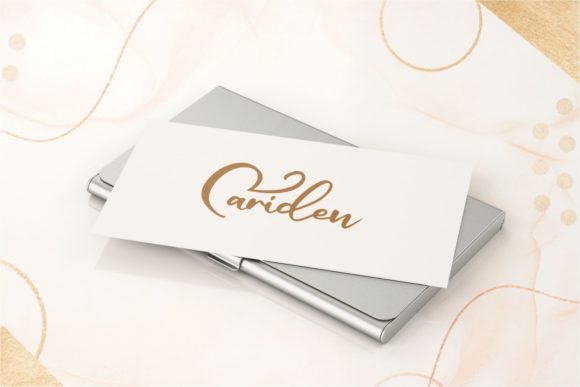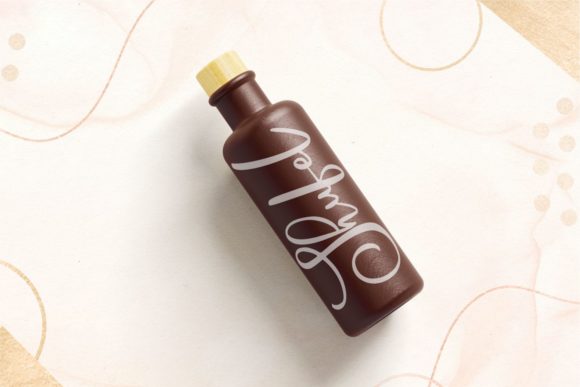
About Enivela Font
Discover the enchanting beauty of Enivela, a delicate and elegant handwritten font that exudes grace and sophistication. With its distinct and well-rounded letters, Enivela transforms your designs into masterpieces that capture attention and evoke a sense of timeless elegance.
The allure of Enivela lies in its versatility. This font effortlessly adapts to a wide range of design projects, allowing you to explore various creative possibilities. From wedding invitations and thank-you cards to quotes, logos, and branding materials, Enivela adds a touch of refined charm to every piece.
Each letter of Enivela is carefully crafted with meticulous attention to detail. The smooth and flowing strokes create a harmonious rhythm, while the graceful curves and gentle slants give the font a sense of organic beauty. The result is a typeface that feels both sophisticated and approachable, making it perfect for both formal and informal designs.
Whether you’re aiming for a classic and timeless aesthetic or a contemporary and modern look, Enivela delivers. Its well-rounded letters maintain legibility and readability, even at smaller sizes, ensuring that your message is conveyed flawlessly. The balanced spacing and carefully designed proportions add to the overall harmony of the font, creating a visually pleasing experience for your audience.
Enivela’s elegance is further enhanced by its ability to effortlessly combine with other design elements. Its delicate nature allows it to pair seamlessly with illustrations, patterns, and decorative elements, enhancing the overall visual impact of your compositions. The font’s versatility shines through as it complements different styles, allowing you to create designs that are truly unique and captivating.
As a designer, you’ll appreciate the ease of use that Enivela offers. The font is designed with clarity and simplicity in mind, allowing you to focus on your creative vision without any distractions. Additionally, Enivela is equipped with OpenType features, providing you with access to alternate characters, ligatures, and swashes that can add even more elegance and variation to your designs.
Let Enivela become your go-to font for adding a touch of delicate elegance to your designs. Whether you’re working on personal projects, professional branding, or creative endeavors, Enivela’s versatility and timeless beauty will elevate your work to new heights. Fall in love with the distinctive charm of Enivela and unlock its potential to create spectacular designs that leave a lasting impression.